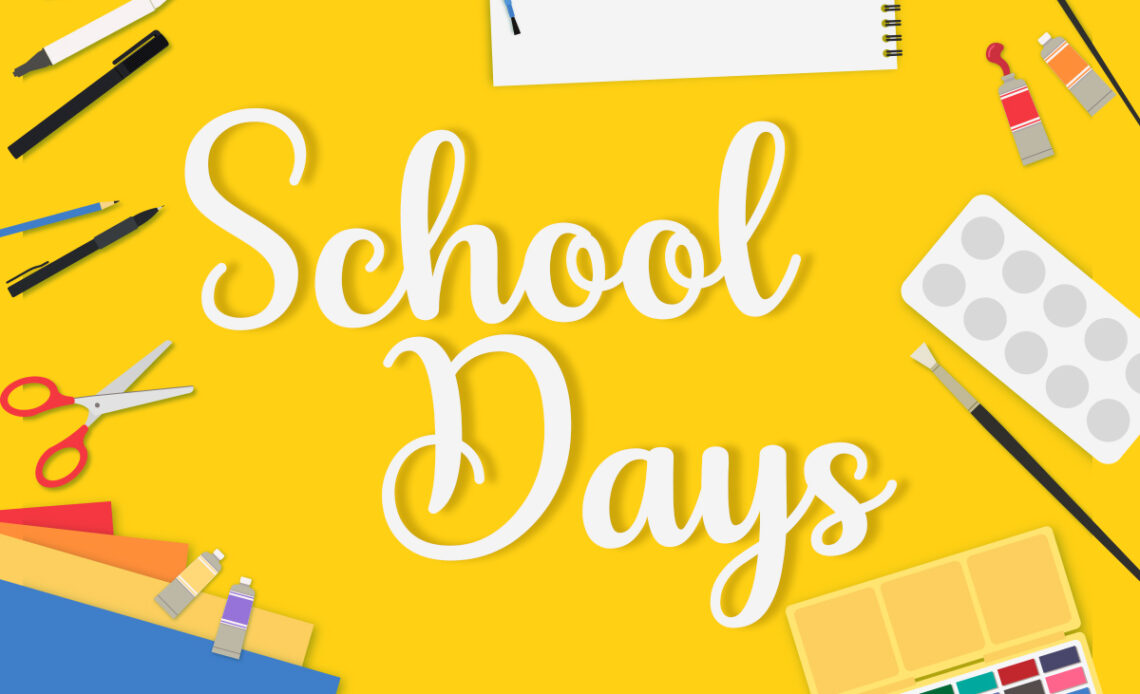
Unleash the whimsical charm of School Days Font, a captivating script font that transports you back to the carefree days of childhood. This friendly and inviting font, meticulously crafted by Silhouette America, Inc., exudes a sense of nostalgia that will add a warm and playful touch to your designs.
With its flowing lines and elegant curves, School Days Font is a visual masterpiece that captures the essence of handwritten notes and heartfelt letters. Its delightful character adds a personal touch to any project, making it an ideal choice for creating heartfelt invitations, whimsical logos, cheerful social media posts, and eye-catching marketing materials.
Immerse yourself in the boundless creativity that School Days Font inspires. Its versatile nature allows you to effortlessly transform ordinary designs into extraordinary expressions of joy and individuality. Whether you're a seasoned designer or just starting out, School Days Font will become your go-to font for adding a touch of whimsy and charm to your projects.
Let School Days Font carry you away on a journey of creative exploration. Its playful style is perfect for adding a touch of whimsy to your designs, while its sophisticated charm ensures that your projects maintain a sense of professionalism. Ideal for creating unique branding materials, stunning website designs, or eye-catching social media graphics, School Days Font is the perfect choice for designers seeking a font that exudes both playfulness and sophistication.